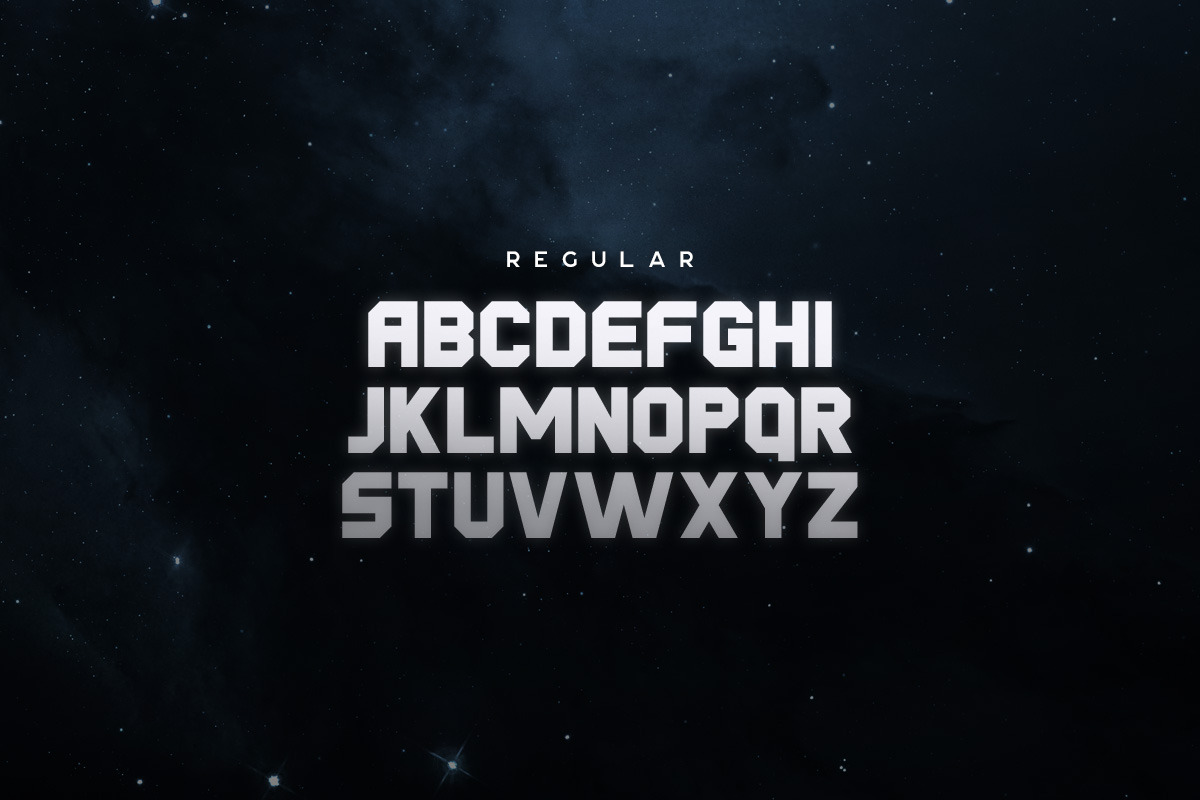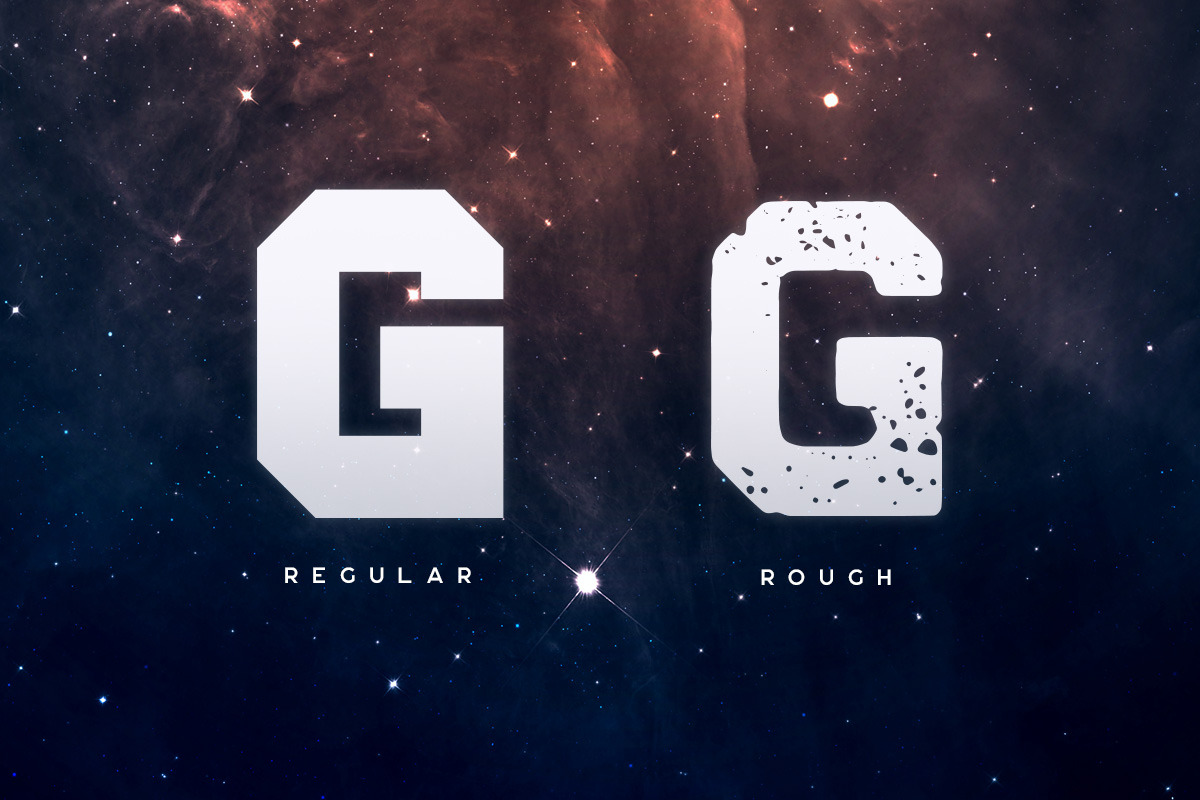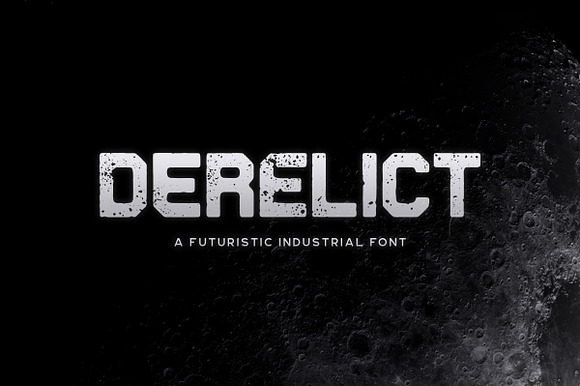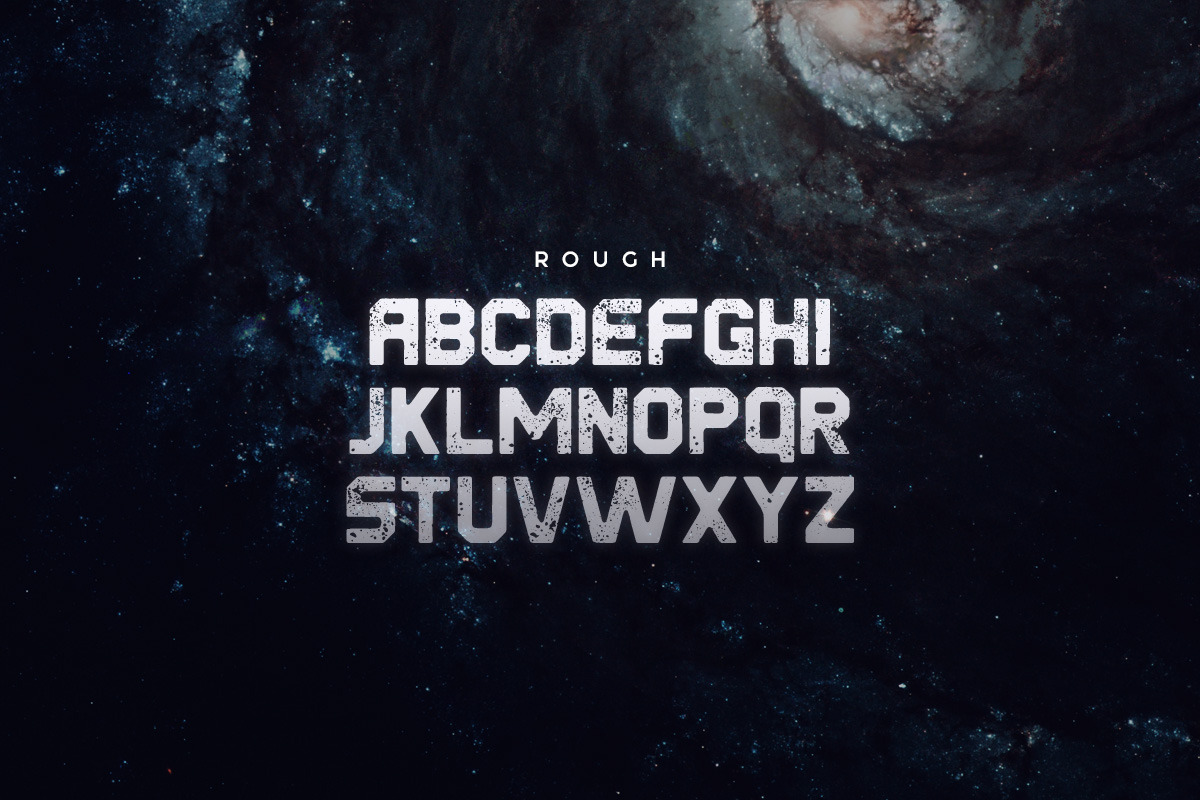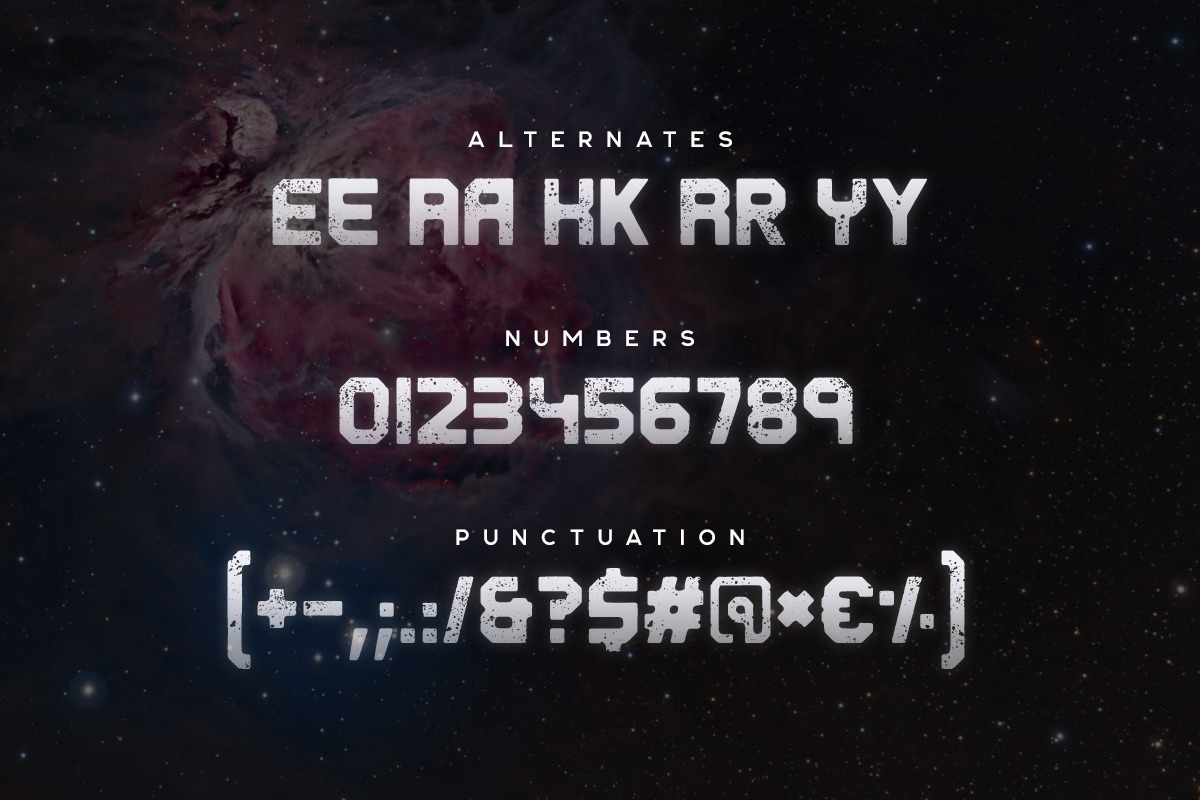
Derelict Typeface
Derelict is a futuristic industrial font family in rough and clean styles. It includes multilingual uppercase letters, alternate letters for some characters, numbers and punctuation.
- It includes multilingual uppercase letters, alternate letters for some characters, numbers and punctuation.
- Derelict Regular
- Derelict Rough